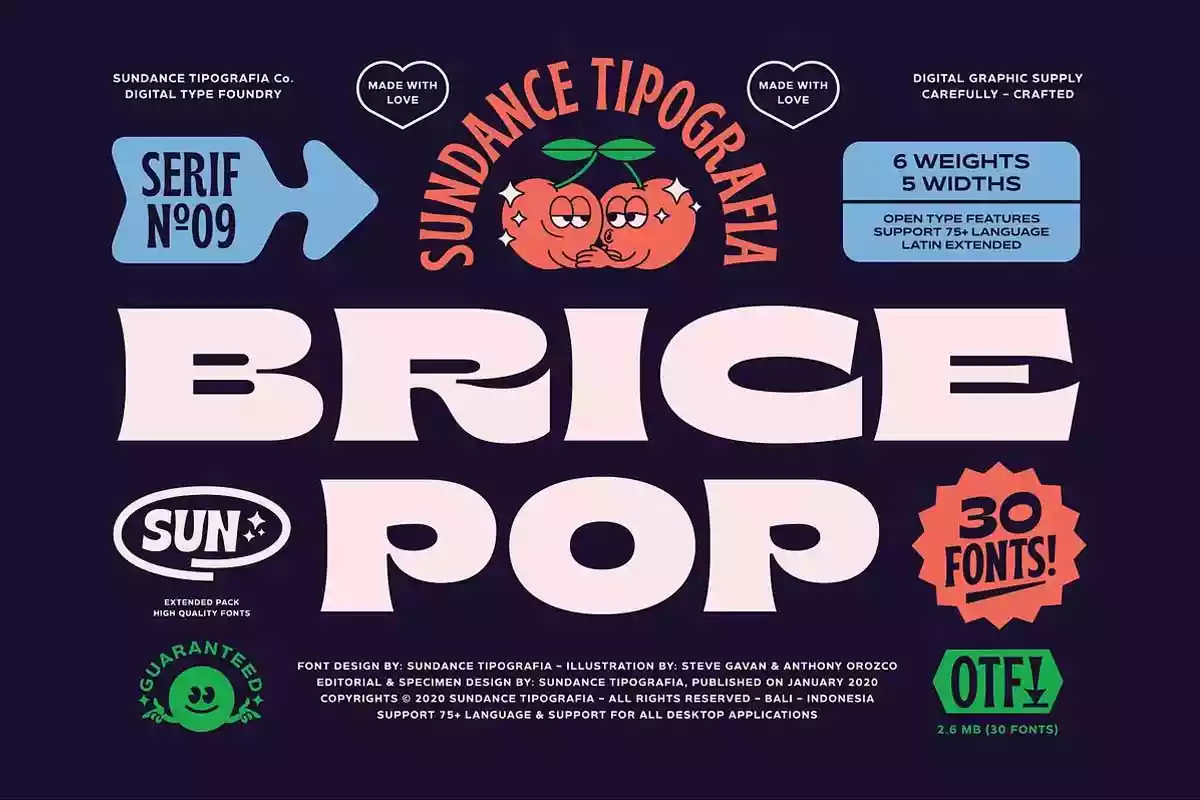
Brice Font
Brice font draws inspiration from the expressive cultural atmosphere of the 1980s, capturing the essence of music, art, literature, fashion, dance, and film that shaped mainstream culture. This typeface stands out with its distinctive letterforms, particularly the characters R, B, S, K, and P, which feature small serified details and strong contrast. These elements create an energetic and dynamic appearance, making Brice an excellent choice for text-based designs that demand character and creativity. Whether used for logotypes, captions, or headers, this typeface brings a bold and artistic touch to any project.
The Brice font family offers five width variations, ranging from thin to wide, giving designers the flexibility to scale their work according to their needs. It also includes six different weights, from extra light to black, ensuring versatility for various design applications. With support for over 75 languages, Brice seamlessly blends nostalgic charm with modern functionality, making it an ideal solution for branding projects and designs that embrace a sharp vintage aesthetic.